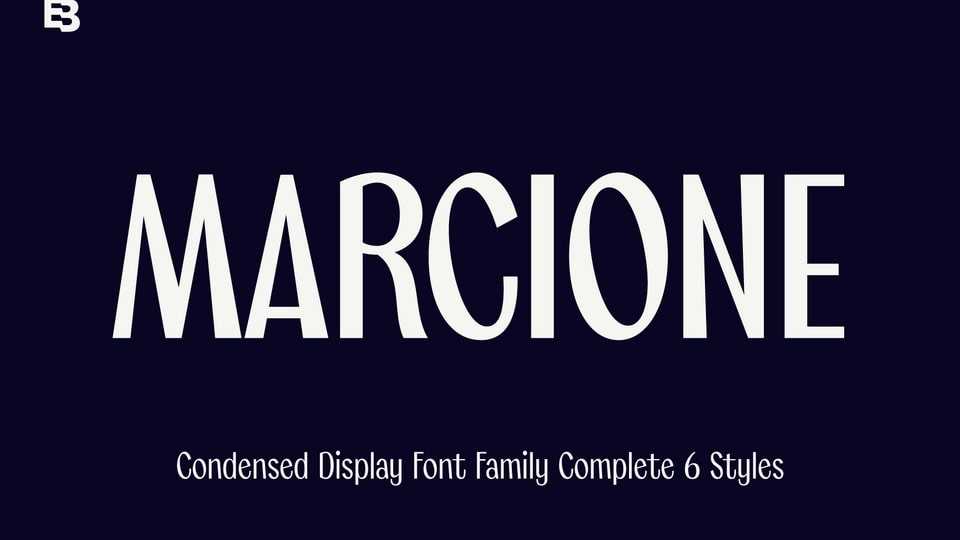
Download Marcione font, a condensed display typeface inspired by a mixture of Deco and Grotesk styles, explored in a fun way. Marcione font is designed to fit for various design and layout purposes from headline, titles and various design themes.